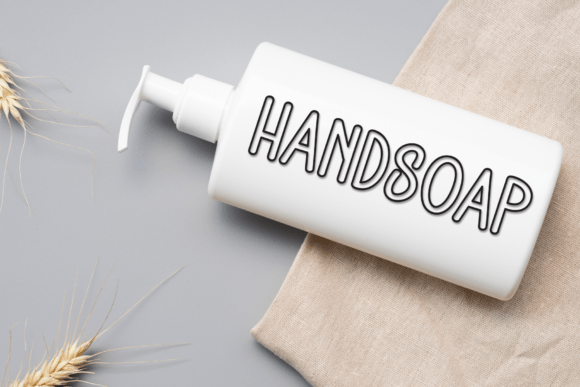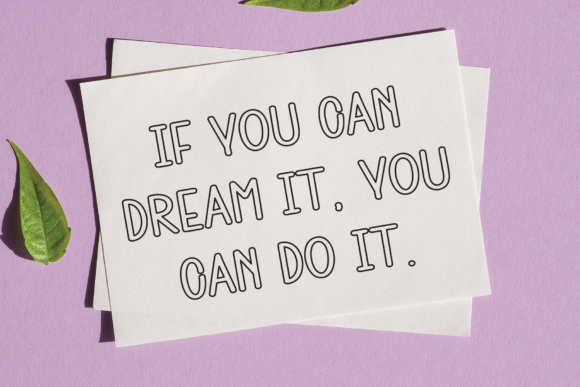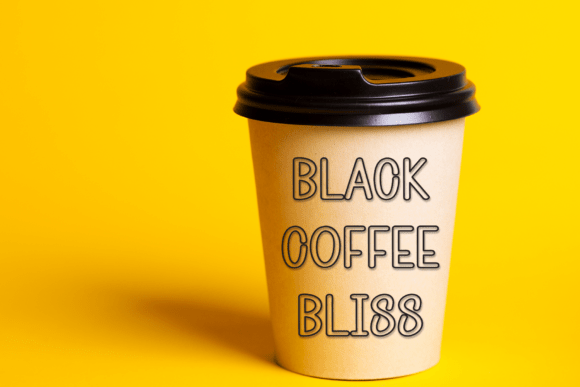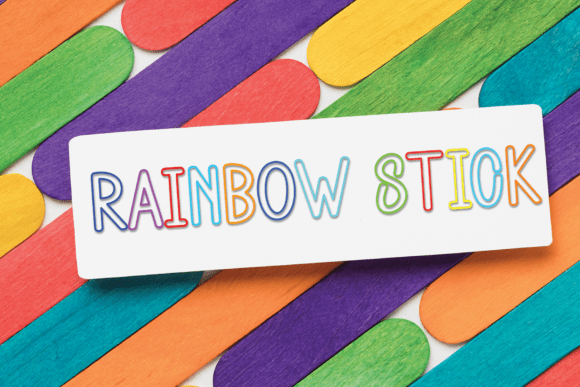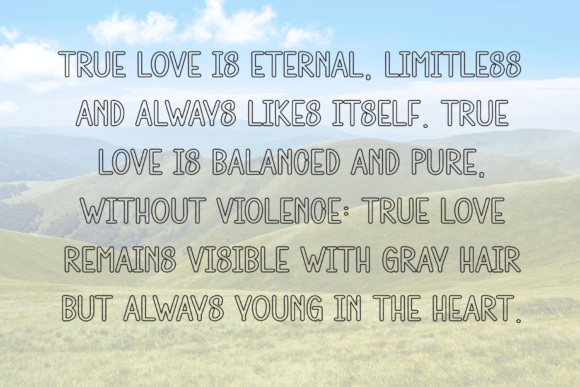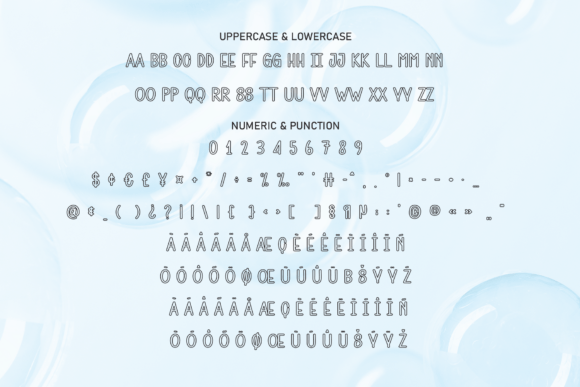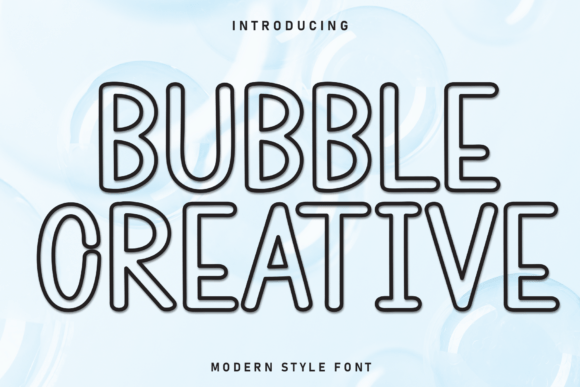
Bubble Creative Font: Elevate Your Designs with a Casual and Neat Display Font
Are you looking for a font that can bring warmth and clarity to your projects? Look no further than the Bubble Creative Font. Designed to be casual and neat, this display font is perfect for adding a touch of approachability and charm to your designs. In this article, we’ll explore the features and benefits of the Bubble Creative Font, and how it can elevate your branding, headlines, and everyday designs.
Clean Structure and Approachable Style
The Bubble Creative Font boasts a clean structure and approachable style, making it perfect for a wide range of design applications. Its balanced letterforms offer excellent readability, ensuring that your message is conveyed clearly and effectively. The font’s neat and casual design makes it an excellent choice for designers and crafters looking to add a touch of warmth and personality to their work.
Perfect for Branding, Headlines, and Everyday Designs
Whether you’re working on a branding project, creating headlines, or designing everyday materials, the Bubble Creative Font is an excellent choice. Its versatility and charm make it suitable for a wide range of design applications, from business cards and brochures to social media graphics and website headers. With the Bubble Creative Font, you can add a touch of personality and approachability to your designs, making them more engaging and effective.
Key Features of the Bubble Creative Font
• Clean and Neat Design: The Bubble Creative Font features a clean and neat design, making it perfect for adding a touch of clarity and sophistication to your projects.
• Approachable Style: The font’s approachable style makes it perfect for designers and crafters looking to add a touch of warmth and personality to their work.
• Balanced Letterforms: The font’s balanced letterforms offer excellent readability, ensuring that your message is conveyed clearly and effectively.
• Versatile and Charmful: The Bubble Creative Font is versatile and charming, making it suitable for a wide range of design applications.
Benefits of Using the Bubble Creative Font
So, why should you choose the Bubble Creative Font for your next design project? Here are just a few benefits of using this amazing font:
• Improved Readability: The Bubble Creative Font’s balanced letterforms and clean design make it easy to read, even at small sizes.
• Increased Engagement: The font’s approachable style and charm can help increase engagement and make your designs more memorable.
• Versatility: The Bubble Creative Font is versatile and can be used for a wide range of design applications, from branding and headlines to everyday designs.
• Unique and Creative: The font’s unique and creative design can help your designs stand out from the crowd and make them more visually appealing.
How to Use the Bubble Creative Font
Using the Bubble Creative Font is easy. Here are a few tips to get you started:
• Pair it with Other Fonts: The Bubble Creative Font pairs well with other fonts, making it easy to create unique and visually appealing combinations.
• Use it for Headlines and Titles: The font’s bold and charming design makes it perfect for headlines and titles.
• Add it to Your Branding: The Bubble Creative Font can add a touch of personality and approachability to your branding, making it more engaging and memorable.
Font Name Bubble Creative Font
In conclusion, the Bubble Creative Font is an excellent choice for designers and crafters looking to add a touch of warmth and clarity to their projects. Its clean structure, approachable style, and balanced letterforms make it perfect for a wide range of design applications, from branding and headlines to everyday designs. With its versatility, charm, and unique design, the Bubble Creative Font is sure to elevate your designs and make them more engaging and effective.